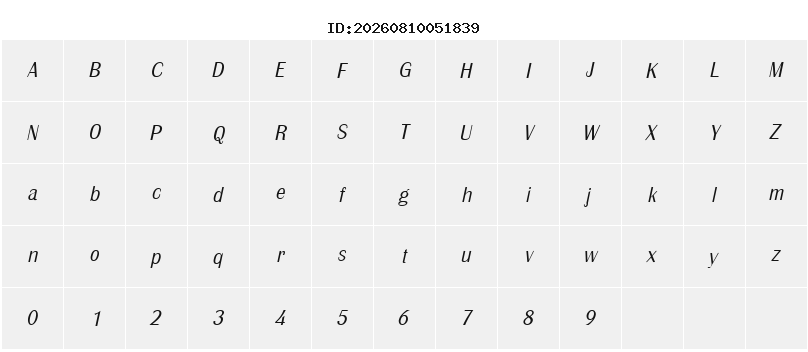
• Font Name: PSL-Pojamarn
• Font ID: Altsys Fontographer 3.5 PSL-Pojamarn Italic
• Full Font Name: PSL-Pojamarn Italic
• Version: Altsys Fontographer 3.5 25/11/95
• PostScript Name: PSL-PojamarnItalic
About PSL-Pojamarn.ttf
PSL-Pojamarn.ttf is a modern, elegant sans-serif font designed for ultimate readability and visual harmony. Perfect for branding, headlines, web design, and print materials.